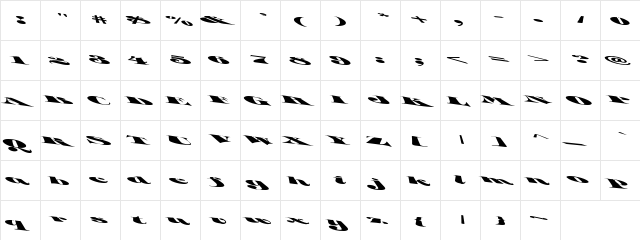
Fictive09 Regular
Design Context for Fictive09 Typeface
Fictive09 is a composed and adaptable typeface that performs quietly and consistently across a wide range of design contexts.